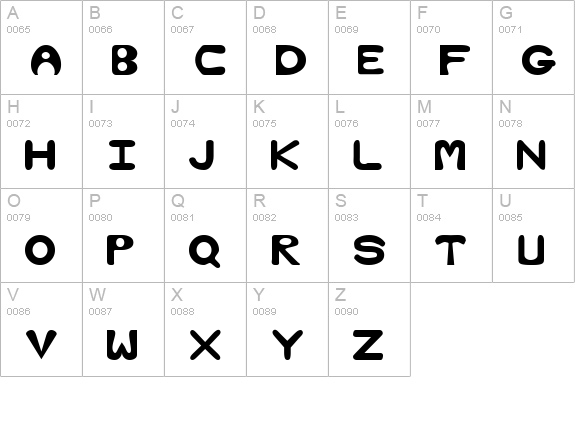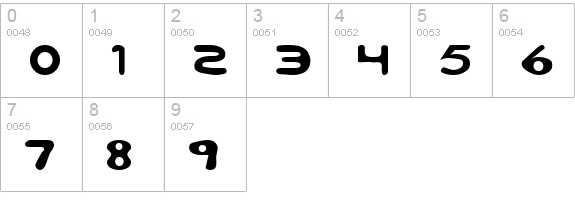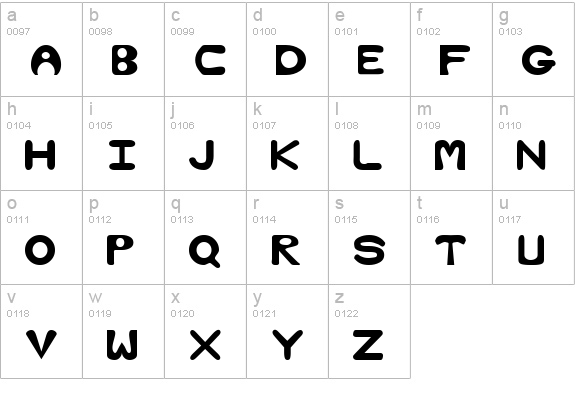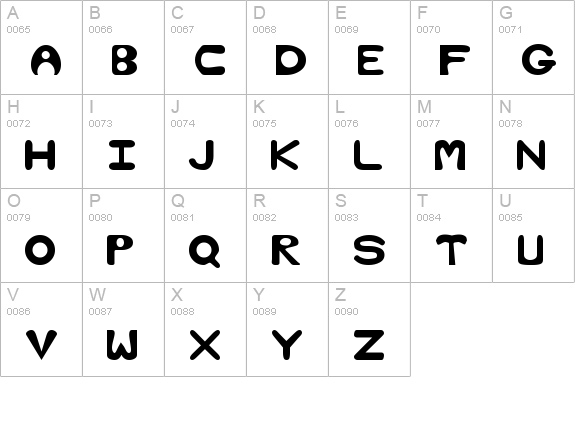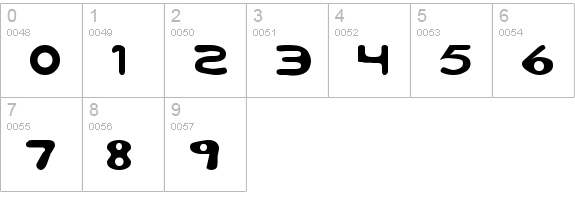
Nimble Regular is the standard, neutral variant in the Nimble typeface family \xE2\x80\x94 well suited to general body text, paragraphs, and standard typographic work.
Nimble Regular font is a versatile and modern typeface that exudes a sense of agility and charm. Its sleek lines and contemporary design make it ideal for a wide range of projects, from branding to editorial design. The balanced proportions and clean curves of Nimble Regular lend a sense of sophistication to any text or headline. The best part? Nimble Regular font is completely free to download at FontsMarket.com. This means you can easily add this stylish typeface to your collection without breaking the bank. Whether you're working on a personal project or a professional assignment, Nimble Regular font is sure to elevate your design to the next level. Don't miss out on this opportunity to enhance your creative work with a high-quality, free font like Nimble Regular. Download it today and see the difference it can make!